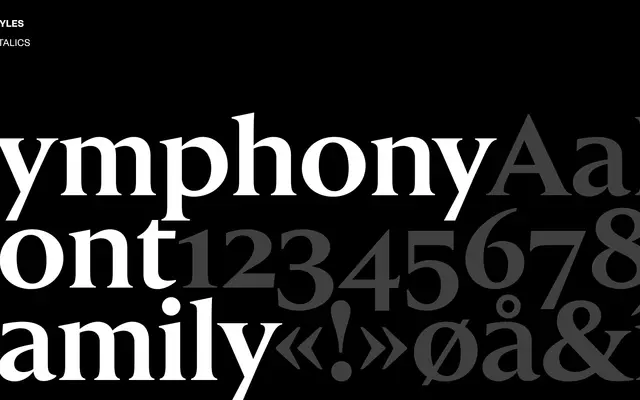
Symphony
A serif typeface from Playtype whose page content offers little detail beyond sample text drawn from fashion writing.
The Symphony specimen page at Playtype uses editorial sample text referencing Savile Row tailoring and bespoke shoemaking, suggesting a typeface positioned for luxury or fashion contexts. Beyond that atmospheric framing, the page provides no designer credits, weight listings or technical specifications. Classification and coverage details here are inferred from the foundry's general output rather than explicit page data.
The name and foundry context suggest a classical serif typeface; without explicit classification data from the page, a transitional serif designation is the most reasonable inference for a typeface from Playtype named Symphony.